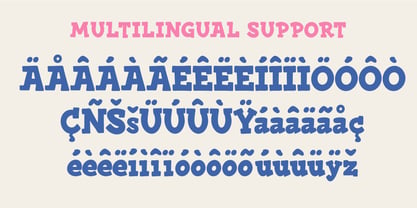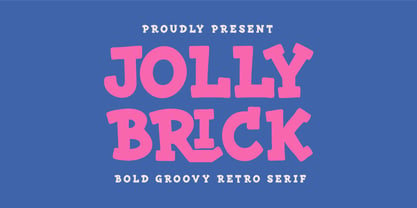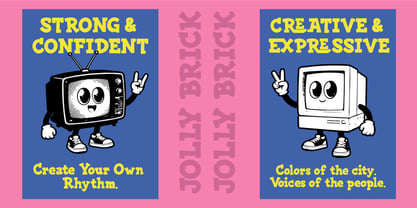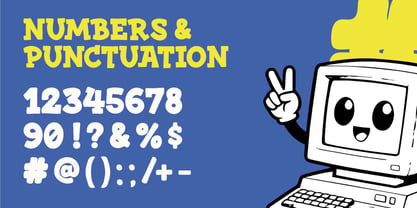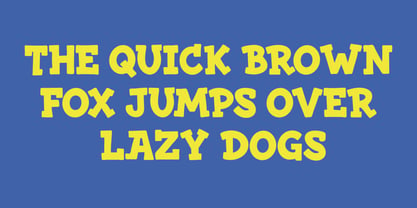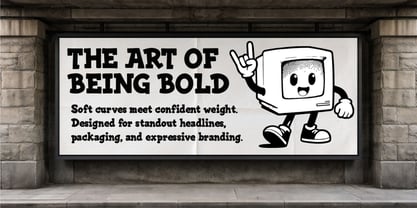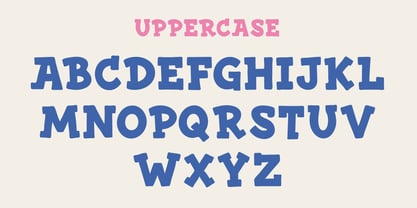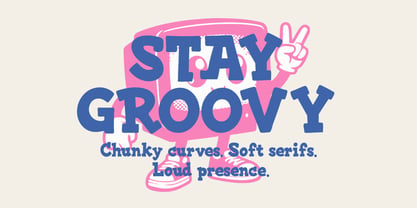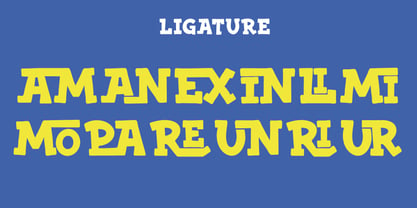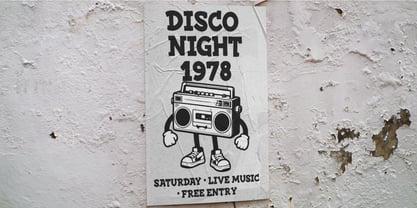
Jolly Brick
by Elevra
The Jolly Brick Font Family was designed by Wirandi Limansyah Zendrato and published by Elevra. Jolly Brick contains 1 styles. More about this family
Jolly Brick is a bold groovy retro serif font inspired by playful 70s aesthetics and chunky vintage typography. With its thick curves, soft serifs, and bubbly structure, this typeface delivers a warm, cheerful, and nostalgic vibe. Designed to stand out in large sizes, Jolly Brick brings personality and charm to every design. Its groovy rhythm and bold weight make it perfect for retro posters, branding projects, packaging, merchandise, social media graphics, and eye-catching headlines. The handcrafted feel combined with strong serif details creates a fun yet confident look. Whether you're working on vintage-inspired designs or bold modern layouts with a retro twist, Jolly Brick adds instant character and visual impact. If you’re looking for a bold retro serif with groovy energy and playful charm, Jolly Brick is ready to brighten up your typography.
Designers: Wirandi Limansyah Zendrato
Foundry: Elevra